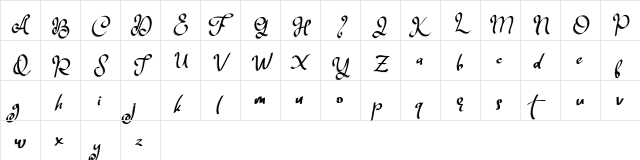
Zildjan FREE Regular
Design Context for Zildjan FREE Typeface
Zildjan FREE is a composed and adaptable typeface that performs quietly and consistently across a wide range of design contexts.